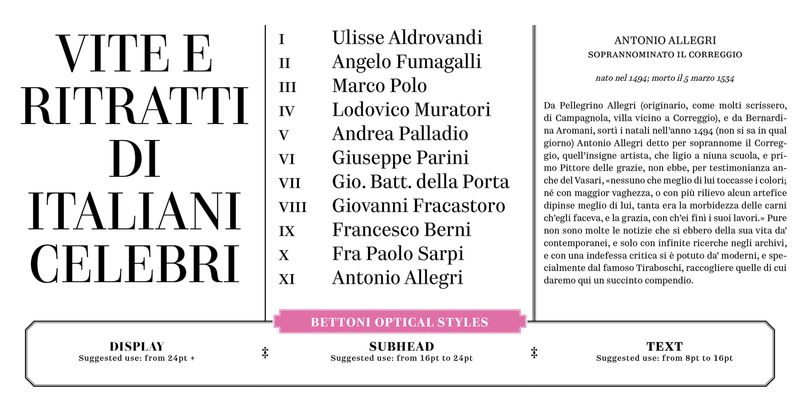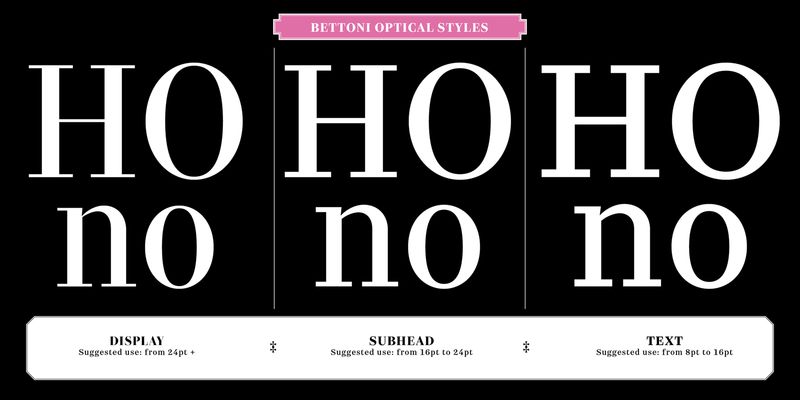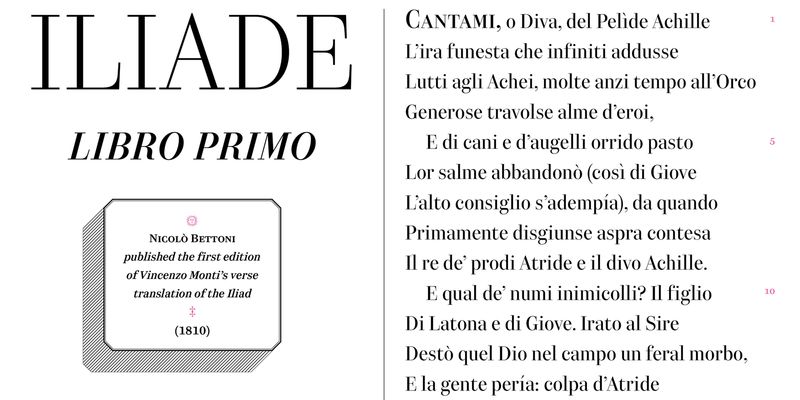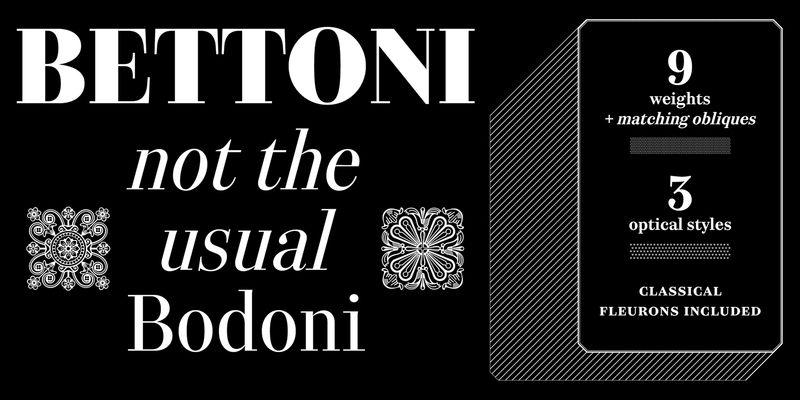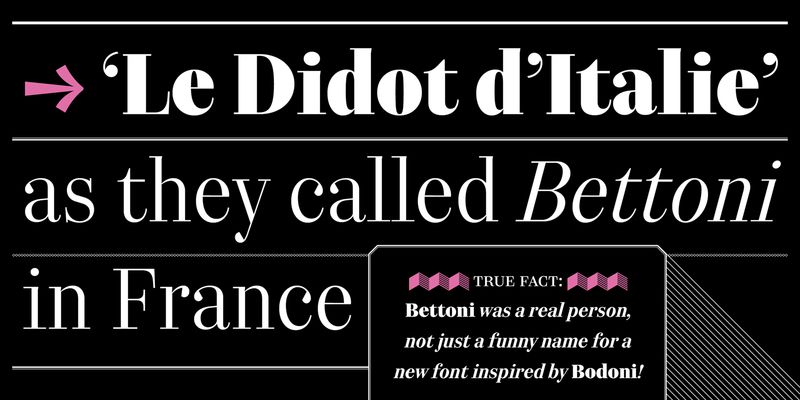
Bettoni is an extensive typeface family in the Bodonian style. Three optical sizes – Text, Subhead and Display – make it outstandingly valuable for publishing, from books to magazines and newspapers, both in print and on screen.